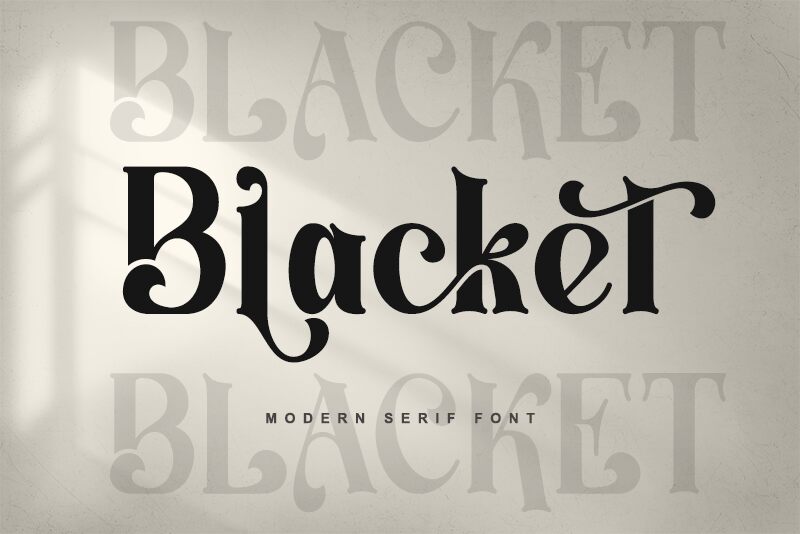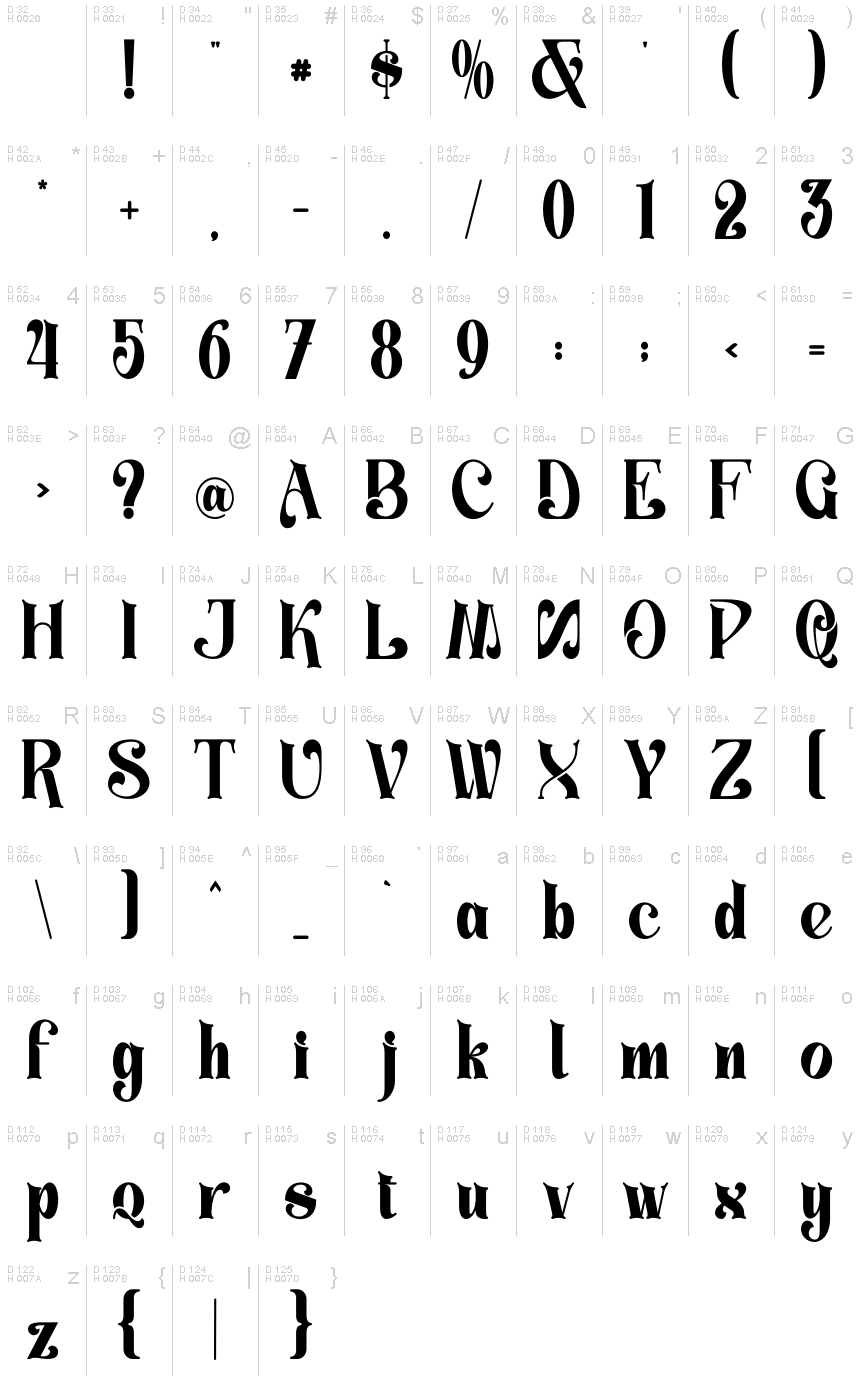
Blacket, crafted by Letterara, is a display font that immediately transports you to an era of timeless charm with its retro flair. Its bold strokes and elegant curves evoke the spirit of vintage design, making it a perfect choice for projects that require a touch of nostalgia. With each character confidently standing out, Blacket adds a distinct personality to any creation.
Ideal for eye-catching headlines, branding materials, and poster designs, this font offers designers the ability to infuse their work with a sense of history while maintaining modern readability. Whether you're looking to make a statement on digital platforms or create memorable print media, Blacket’s stylish retro essence ensures your message is delivered with character and sophistication.